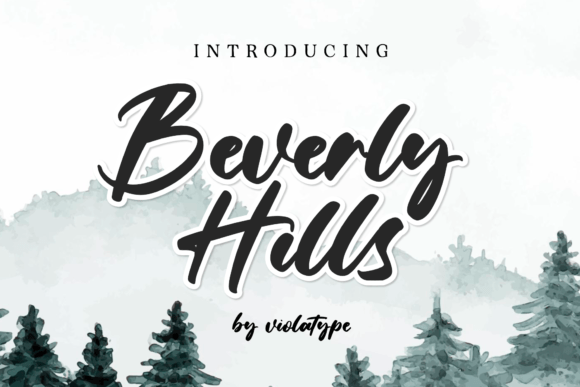
Unleashing Your Creativity with the Beverly Hills Font
As you sit down to craft the perfect design, your mind is flooded with ideas, inspiration, and a dash of creativity. You’ve got a vision, and it’s time to bring it to life. But, have you ever struggled to find the perfect font to complement your artistic expression?
Enter the Beverly Hills Font, a stunning handwritten font designed to add a touch of elegance and sophistication to your designs. With its unique shape and beautiful strokes, this font is perfect for making a lasting impression. Whether you’re creating a banner, logo, or quote, the Beverly Hills Font is sure to elevate your design game. As a designer, you’ll appreciate its versatility and the value it brings to your projects, making it a must-have addition to your design arsenal.
Beverly Hills Font Key Features
- Font Family: Beverly Hills Font is a modern, elegant script font.
- Unique Characteristics: Distinctive swashes, flourishes, and subtle irregularities that give the font a sophisticated, handwritten feel.
Beverly Hills Font Review
I’ve had the chance to work with the Beverly Hills Font, and here’s my honest take on it.
- The font is indeed luxurious and elegant, perfect for high-end branding and design projects.
- The script and serif variations add a touch of sophistication and refinement.
- The font is highly legible, making it suitable for body text and headlines alike.
- The font is quite ornate, which may not be suitable for all design projects or personal preferences.
- The font’s size may not be as scalable as some other fonts, which could lead to issues with legibility at smaller sizes.
- The font may not be compatible with all operating systems or devices, which could cause display issues.
Overall, the Beverly Hills Font is a beautiful and elegant choice for high-end design projects. While it may have some limitations, it’s a great option for those looking to add a touch of luxury to their branding and design work. Just be sure to test it thoroughly and consider the potential issues before using it in your projects.
The Beverly Hills Font is commonly used for:
- Luxury brand logos and marketing materials
- High-end event invitations and promotional materials
Remember to use the font in a way that aligns with the tone and style of your project.
Alternatives to Beverly Hills Font
1. Didot
Didot is a luxurious serif font that exudes elegance and sophistication. It is ideal for high-end branding, fashion, and luxury goods. When to use: Use Didot for creating a sense of refinement and glamour in your designs.
Comparison to Beverly Hills Font: Didot is more formal and traditional compared to Beverly Hills Font, which is often used for its playfulness and whimsy. Didot’s classic look makes it a popular choice for luxury brands.
2. Playfair Display
Playfair Display is an elegant and luxurious serif font that is perfect for creating a sense of drama and sophistication. It is ideal for high-end branding, fashion, and luxury goods. When to use: Use Playfair Display for creating a sense of opulence and grandeur in your designs.
Comparison to Beverly Hills Font: Playfair Display is more ornate and decorative compared to Beverly Hills Font, which is often used for its clean and minimalist look. Playfair Display’s elaborate flourishes make it a popular choice for luxury brands.
What is the recommended font size and line height for optimal readability with the Beverly Hills Font?
The recommended font size for the Beverly Hills Font is between 12-14 points, with a line height of at least 1.5 times the font size. This will ensure optimal readability and visual balance in your designs.